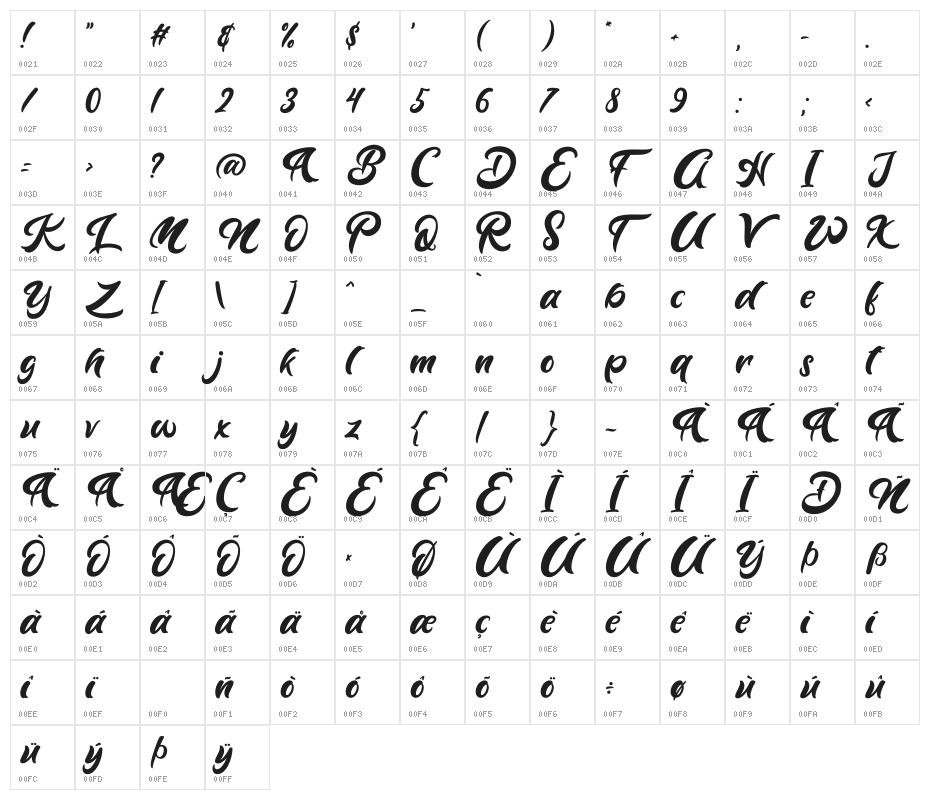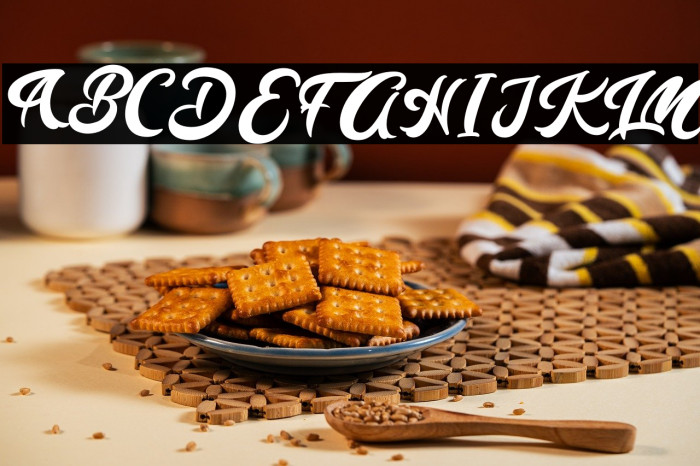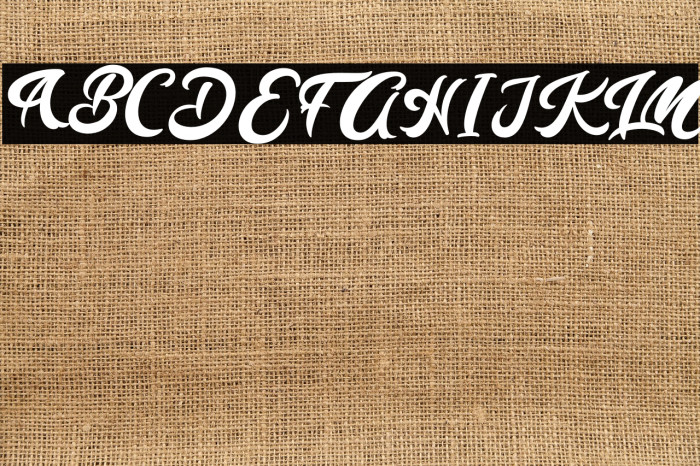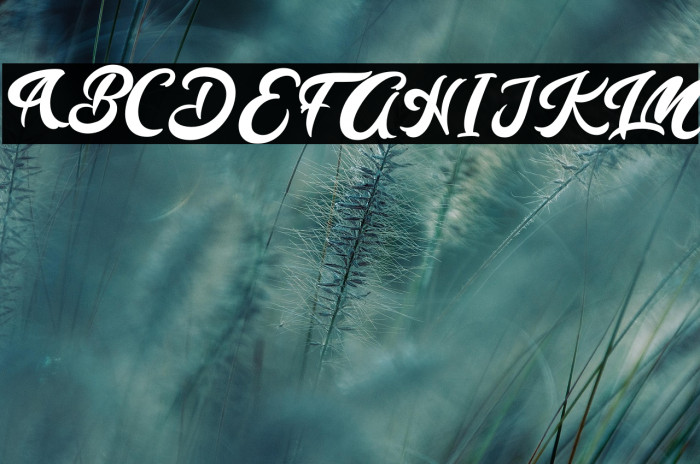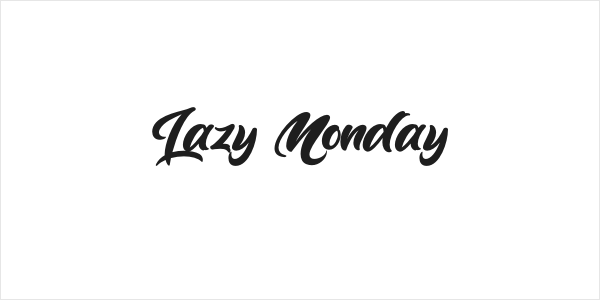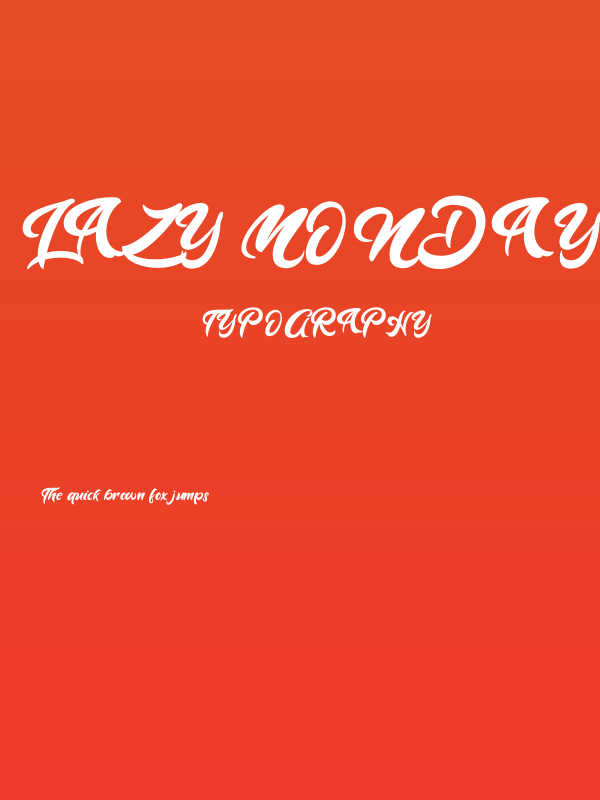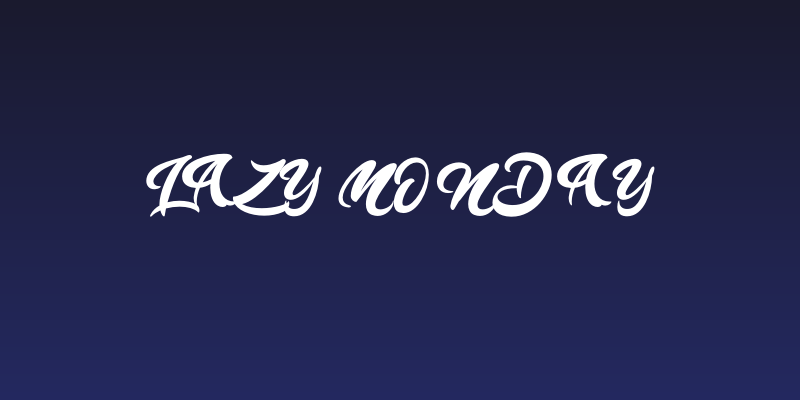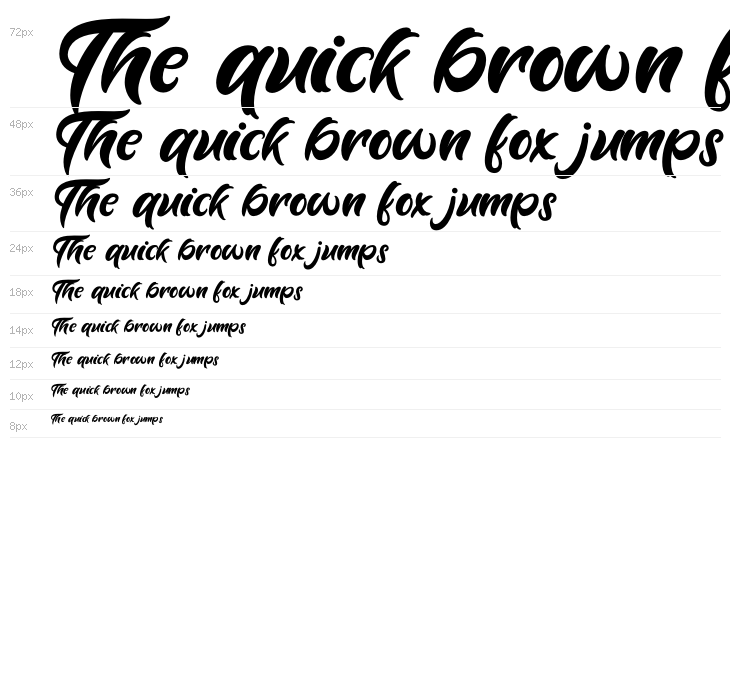
Lazy Monday Font
This font features a bold and expressive script style, characterized by its flowing, cursive letterforms. The uppercase letters are ornate and dynamic, with sweeping curves and flourishes that give a sense of movement and elegance. The lowercase letters maintain the same fluidity, with a slightly more compact form that complements the uppercase. Numbers and special characters are designed to match the overall aesthetic, ensuring consistency throughout. The font's bold weight and high contrast in stroke thickness make it stand out, while the character spacing is relatively tight, enhancing its cohesive appearance.